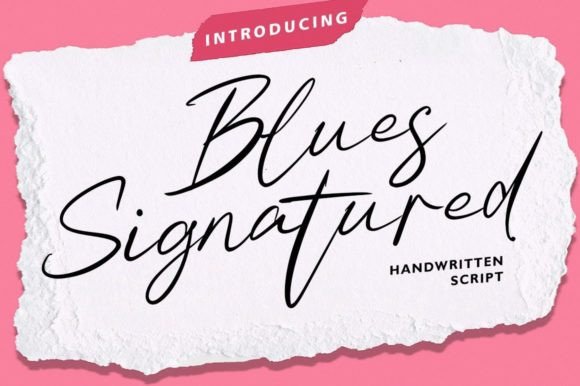
The Blues Signatured Font: A Bold and Beautiful Script for Your Creative Projects
I’ll never forget the time I was working on a wedding invitation design project, and my client asked for a font that would evoke the feeling of classic writing. I scoured the internet, trying out font after font, but nothing seemed quite right. That was until I stumbled upon the Blues Signatured font. With its bold vibe and stunning script, it was love at first sight! In this article, I’ll share my experience with this beautiful font, its features, and how to make the most of it in your designs.
Here’s what I love about the Blues Signatured font:
- ✨ Unique and eye-catching: This font stands out from the crowd, making it perfect for projects that need a touch of elegance and sophistication.
- ✅ Highly versatile: From branding to wedding invitations, greeting cards to posters, Blues Signatured is suitable for a wide range of projects.
- 💫 Classic feel with a modern twist: The font’s bold vibe gives it a fresh and contemporary look that’s hard to find in traditional scripts.
And, like any font, it’s not without its quirks:
- 🤔 Limited use in small sizes: Due to its bold nature, Blues Signatured can be overwhelming in small sizes. It’s best used in larger sizes or headings.
- ⚠️ Some characters may require manual kerning: As with any script font, some characters may need manual kerning to ensure perfect spacing.
The Designer Inspiration Behind Blues Signatured
The Blues Signatured font was created with the intention of capturing the essence of classic writing. The designer, inspired by traditional calligraphy and lettering, aimed to create a font that would evoke a sense of elegance and sophistication. The result is a beautiful script font that’s perfect for a wide range of creative projects.
| What is the Blues Signatured font best used for? | The Blues Signatured font is best used for branding, wedding invitations, greeting cards, posters, business cards, quotes, blog headers, logos, fashion, clothing, letters, stationery, and other projects that require a touch of elegance and sophistication. |
| Is the Blues Signatured font suitable for body text? | No, the Blues Signatured font is best used for headings and titles. Its bold nature makes it less suitable for body text. |